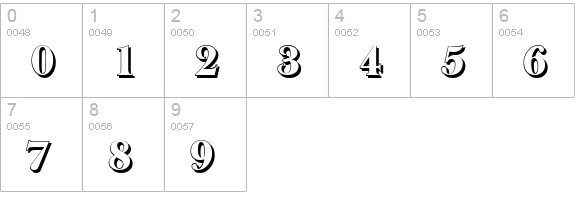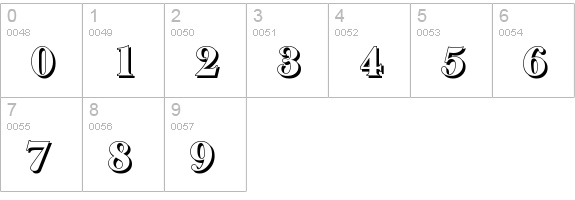
BaskerOldShadow-Heavy-Regular is a heavy, high-impact variant in the BaskerOldShadow typeface family \xE2\x80\x94 well suited to high-impact headlines, posters, and display advertising.
BaskerOldShadow-Heavy-Regular is a versatile and eye-catching font that exudes a sense of strength and sophistication. Its bold and heavy design makes it perfect for making a statement in headlines, posters, and logos. The shadow effect adds depth and dimension to the text, giving it a unique and dynamic look. Best of all, BaskerOldShadow-Heavy-Regular is available for free download at FontsMarket.com. This means you can easily access this stylish font and use it in your various design projects without any cost. Whether you're a professional designer or a casual creator, BaskerOldShadow-Heavy-Regular is a valuable addition to your font collection. Download it today and elevate your designs with this striking and impactful typeface.